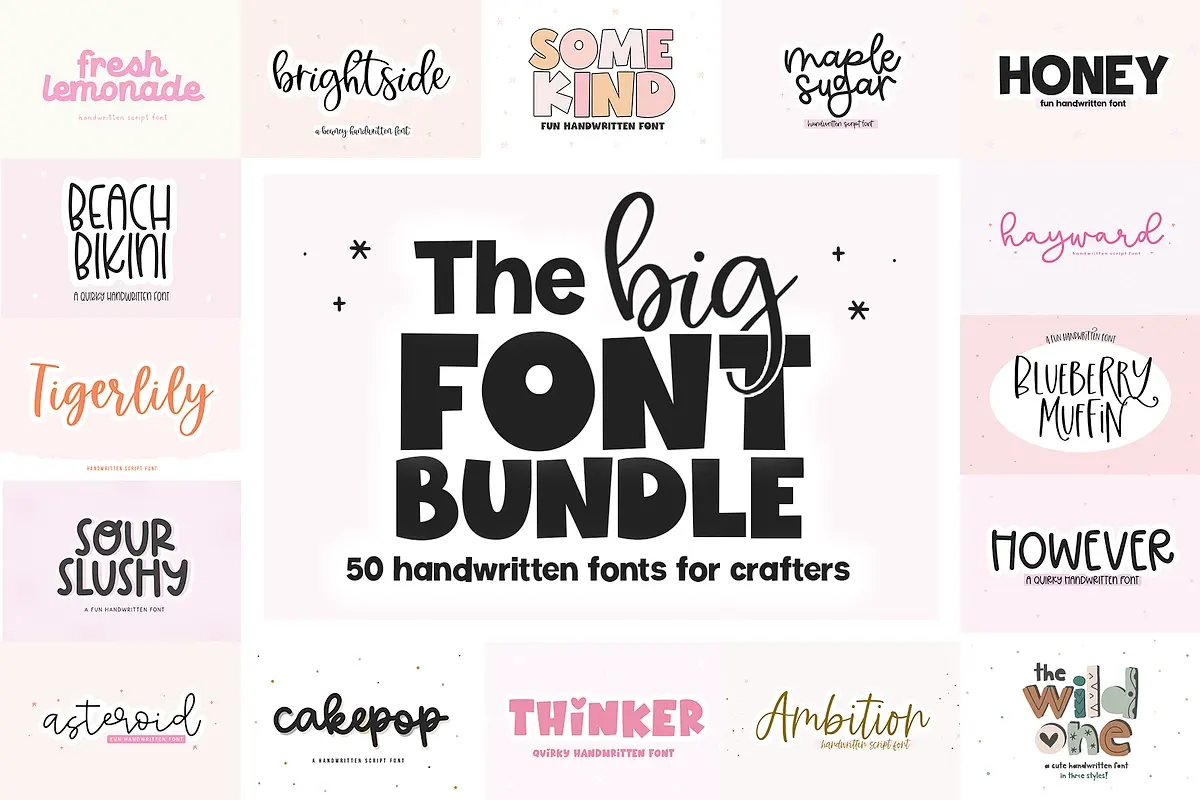
Big Font Bundle | 50 Fonts Free Download
Big Font Bundle | 50 Fonts Free Download is an incredible collection packed with versatile typefaces ranging from elegant scripts to bold displays, playful handwritings to sleek modern sans-serifs. Ideal for designers, crafters, and branding professionals, this bundle equips you with a complete font arsenal for logos, packaging, wedding invites, apparel, social media, and more.
Each font in the bundle is carefully crafted to deliver high-quality results, giving you creative freedom and stylistic variety in one powerful set. Whether you're working on a vintage design, minimalist branding, or whimsical artwork, you'll find the perfect match within this extensive collection.